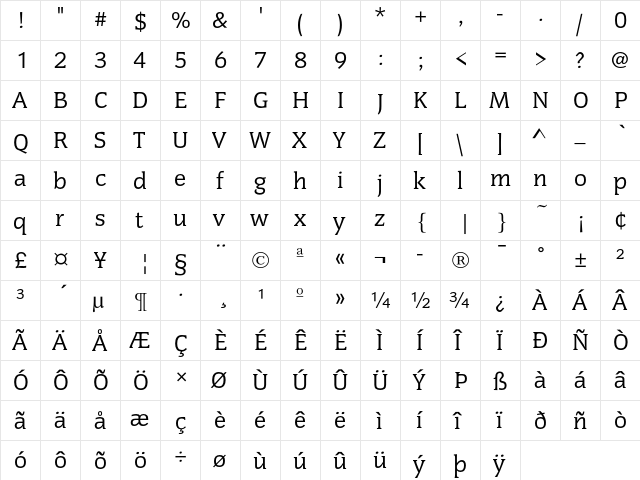
Congress LT Std Regular
| Foundry | Linotype GmbH |
| Designer | Adrian Williams |
Design Context for Congress LT Std Typeface
Congress LT Std offers clean, dependable letterforms without strong stylistic allegiance, making it a practical choice for designers who need flexibility. The delicate stroke weight brings airiness and refinement to layouts.